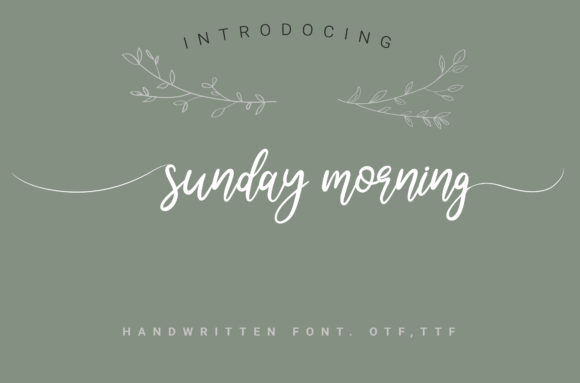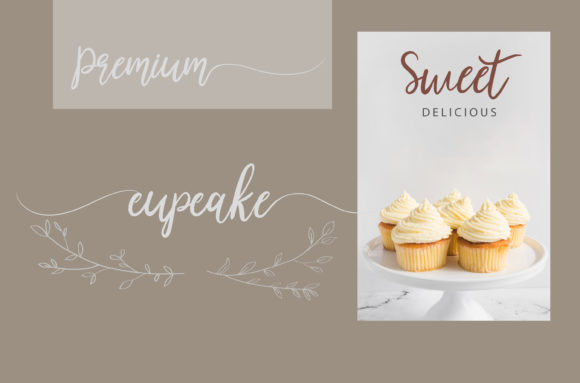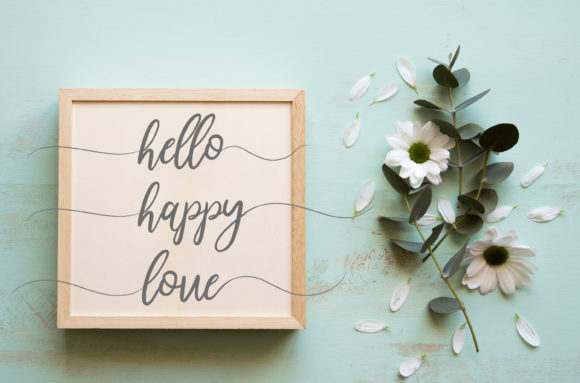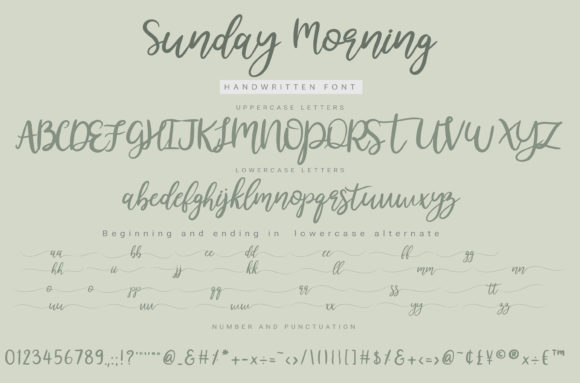
Sunday Morning Font
About Sunday Morning Font
Sunday Morning is a beautiful handwritten font. Whether you’re looking for fonts for Instagram or calligraphy scripts for DIY projects, Sunday Morning will turn any creative idea into a true piece of art!